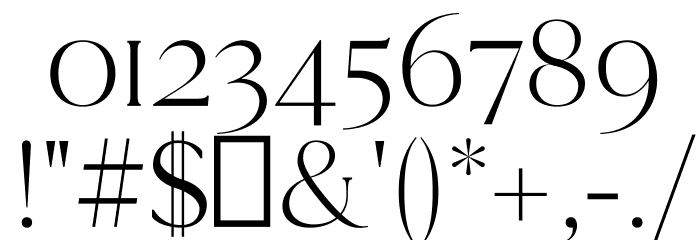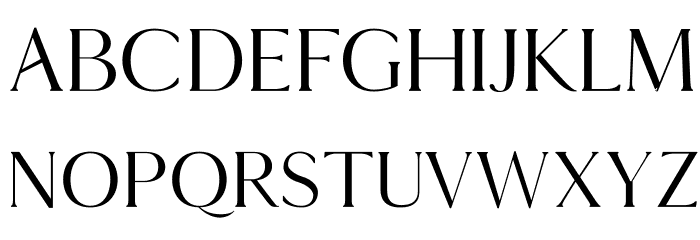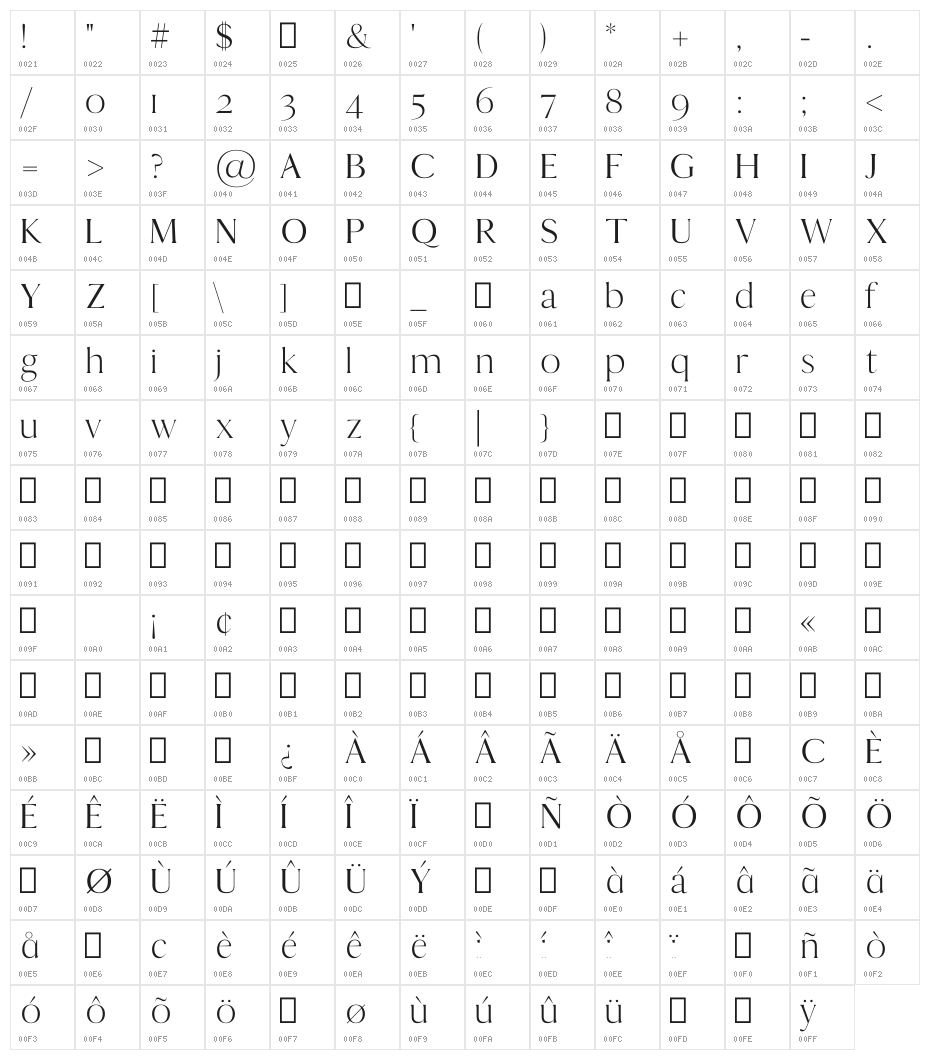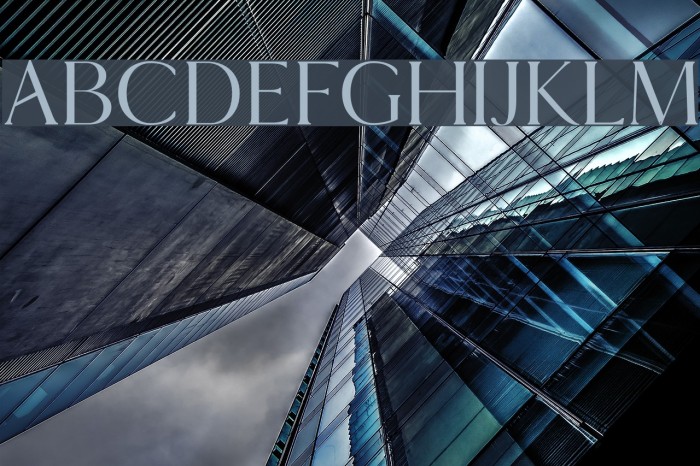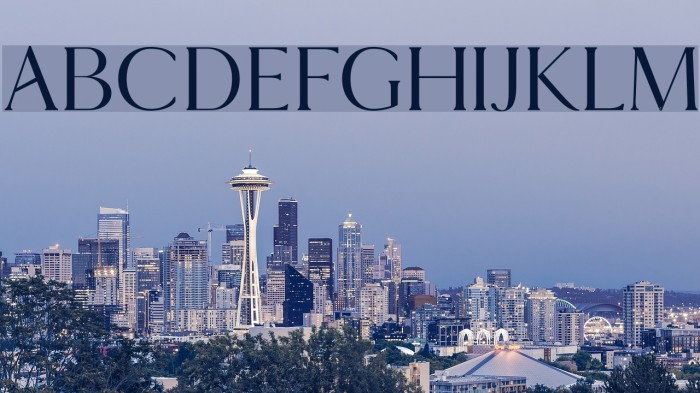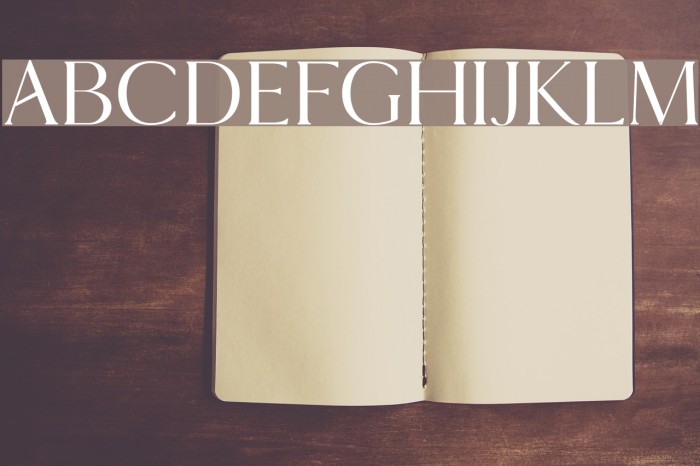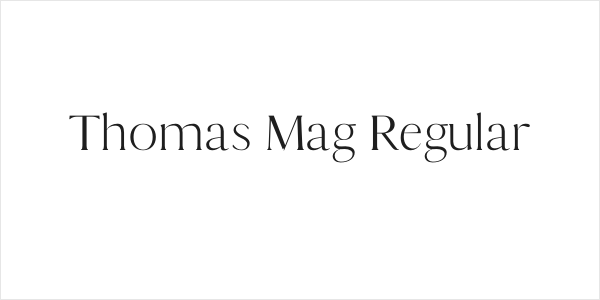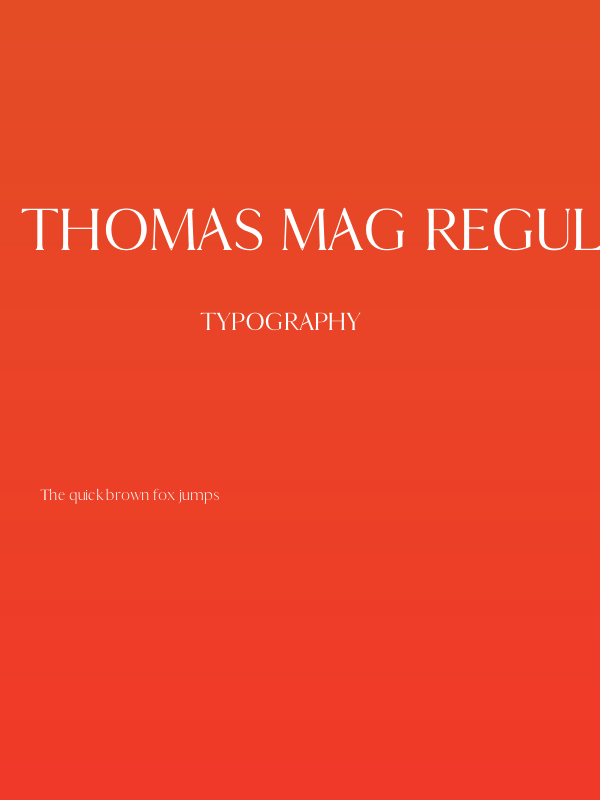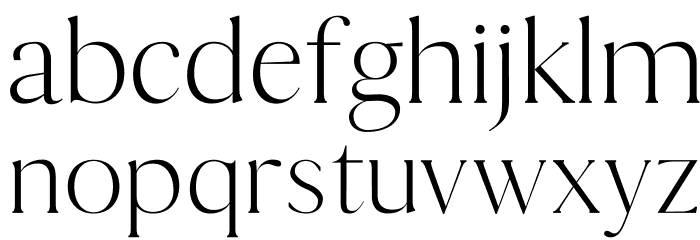
Thomas Mag Regular Font
Thomas Mag Regular Description
This font exhibits a refined and elegant serif style, characterized by its thin and graceful strokes. The uppercase letters are tall and sophisticated, while the lowercase letters maintain a consistent and harmonious flow. The numerals are distinct and clear, with a classic touch that complements the overall aesthetic. Special characters are well-integrated, maintaining the font's elegant appearance. The design is both timeless and versatile, suitable for a variety of applications that require a touch of sophistication.